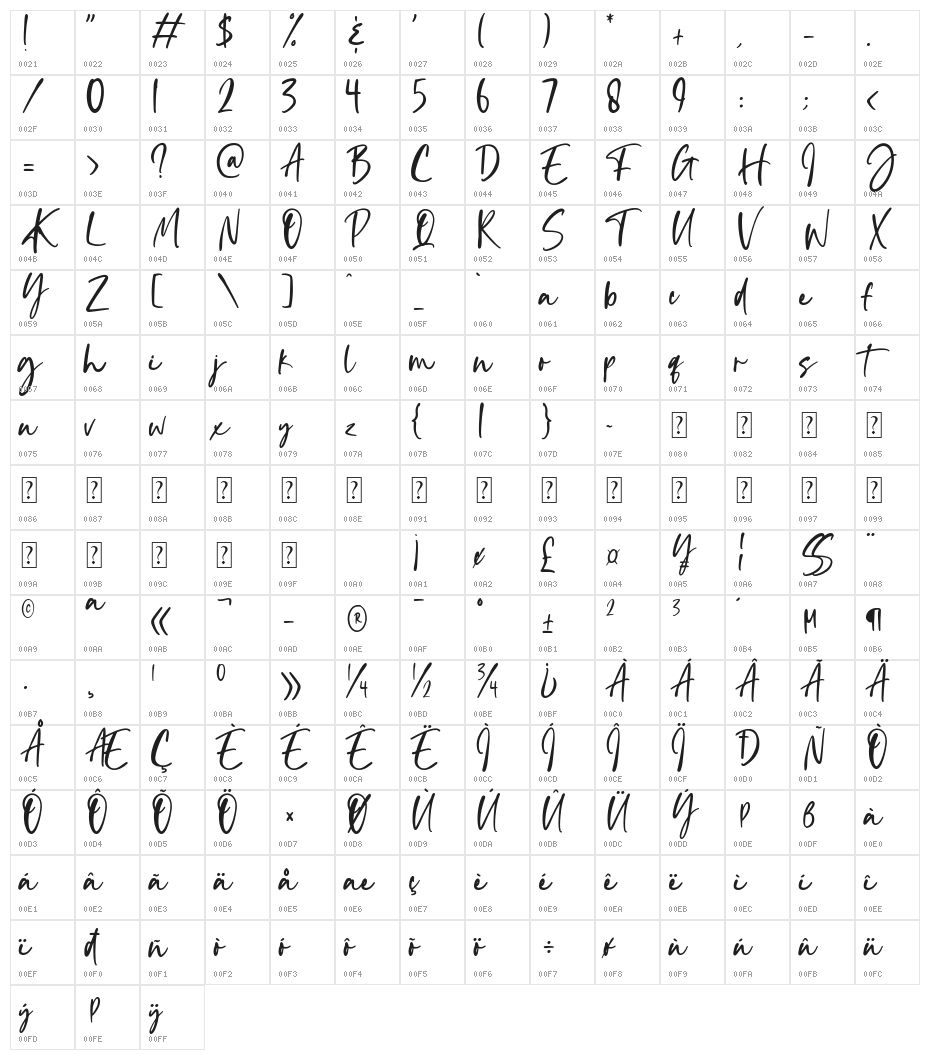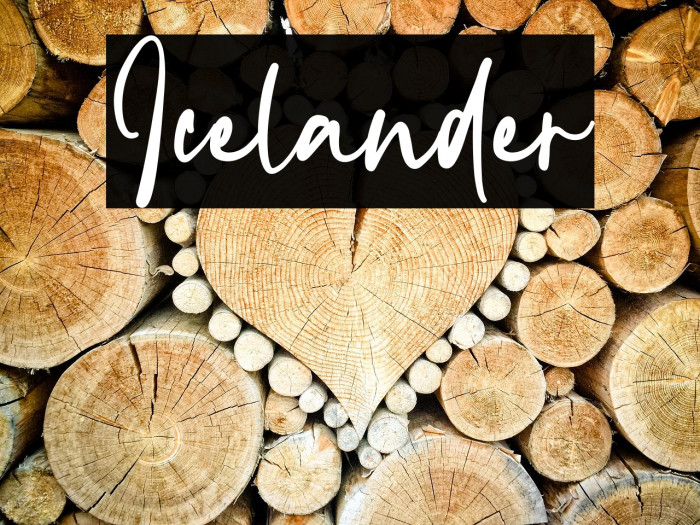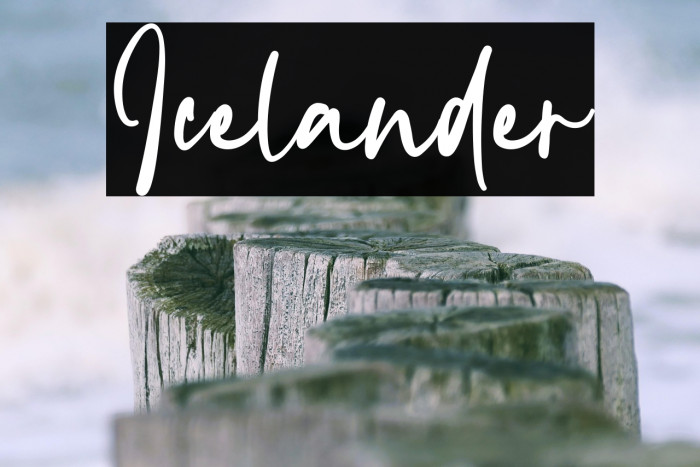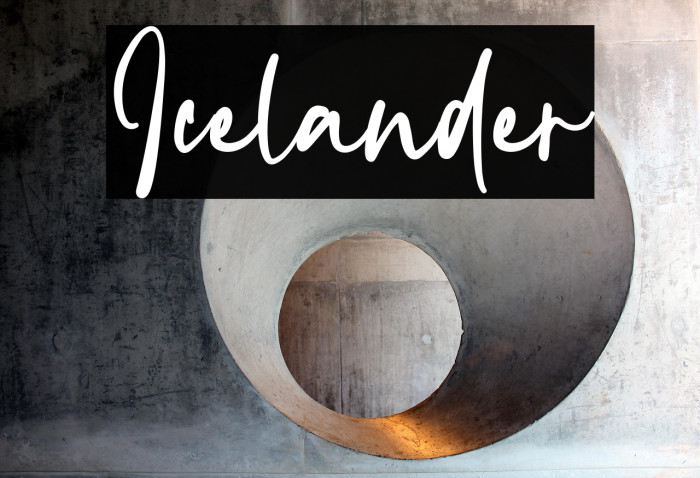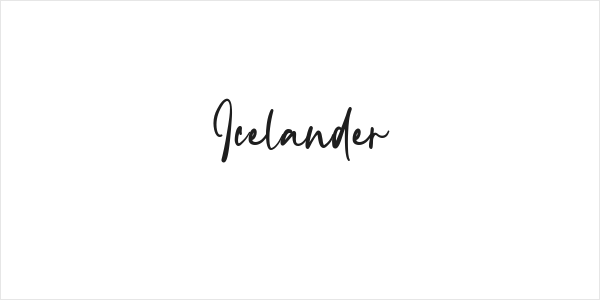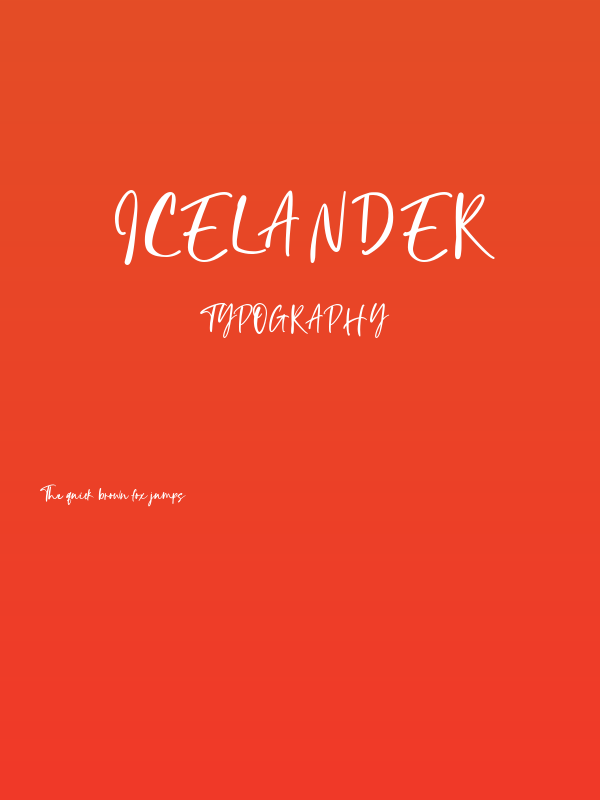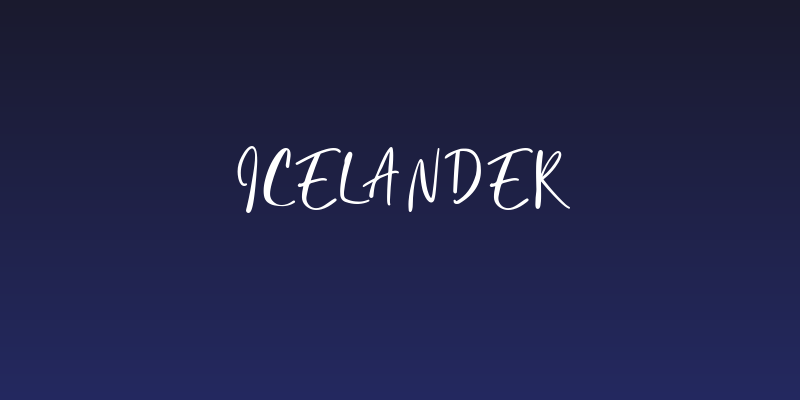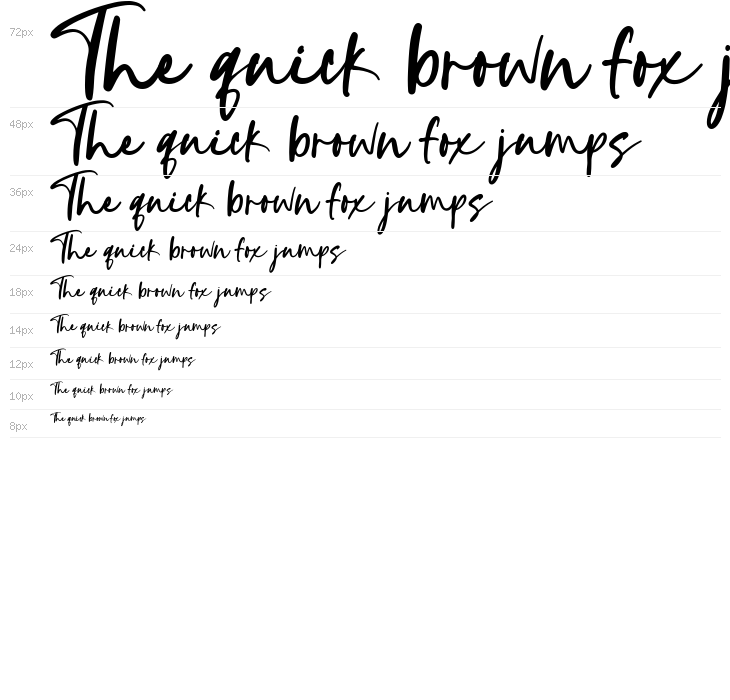
Icelander Font
Icelander Description
This font exudes a lively and dynamic handwritten style, characterized by its fluid and expressive strokes. The uppercase letters are bold and slightly slanted, giving a sense of movement and energy. The lowercase letters maintain a consistent flow, with some characters extending below the baseline, adding to the font's playful nature. Numbers are clear and legible, while special characters retain the same energetic style, making them stand out. The overall appearance is casual yet sophisticated, suitable for projects that require a personal touch.
| Use Case | Logos, Invitations, Personal Branding |
| Proposed Projects | Ideal for greeting cards, invitations, personal branding, and creative projects that require a personal and energetic touch. |